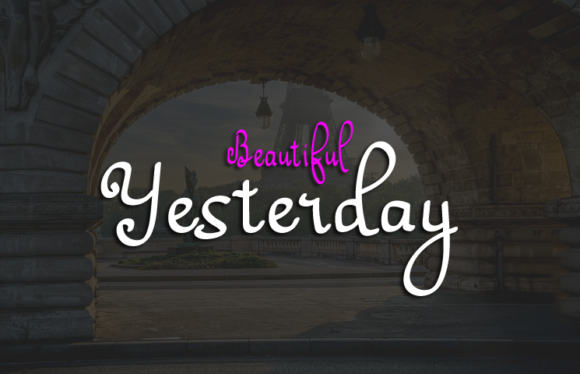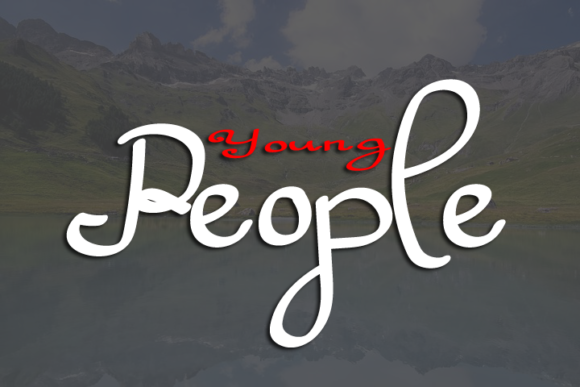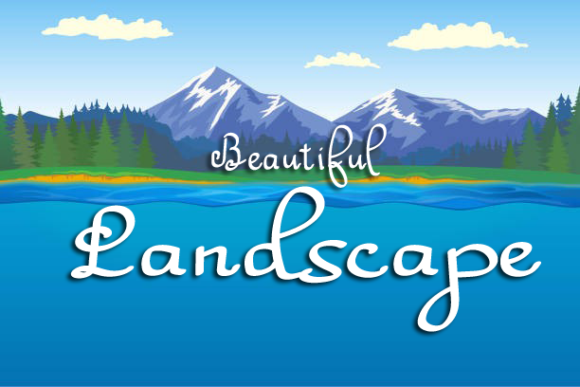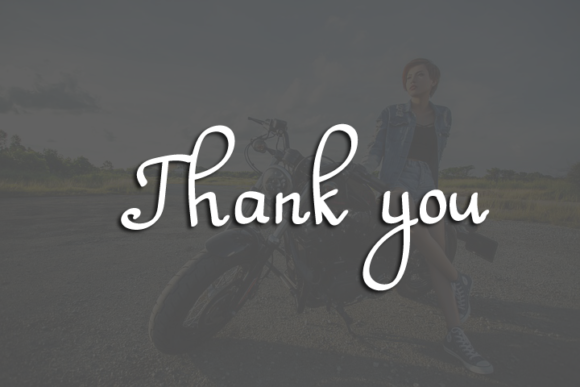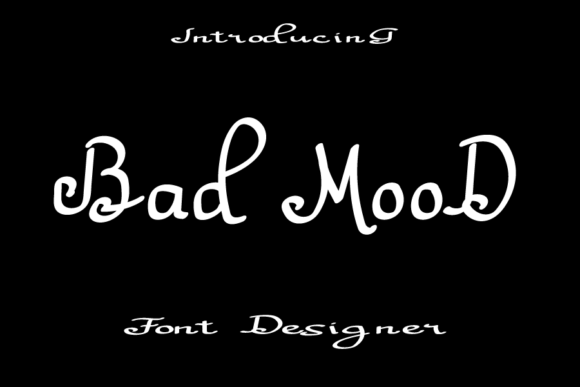
Introducing Bad Mood Font: The Epitome of Sophistication and Elegance
In the world of typography, fonts play a crucial role in conveying the tone and personality of a brand or design. For designers and crafters seeking to add a touch of refinement and luxury to their projects, Bad Mood Font is an exceptional choice. This chic, refined script font emanates sophistication and elegance, making it perfect for a wide range of applications.
The Characteristics of Bad Mood Font
Bad Mood Font boasts an impressive array of features that set it apart from other fonts. Its stylish alternates and ligatures make it a versatile and dynamic font, capable of adding a unique touch to any design. The font’s script style is reminiscent of traditional calligraphy, with flowing lines and curves that exude elegance and poise.
What Makes Bad Mood Font Stand Out
• Sophisticated and Refined: Bad Mood Font is designed to convey a sense of luxury and sophistication. Its refined lines and curves make it perfect for high-end branding, packaging, and advertising projects.
• Stylish Alternates and Ligatures: The font features a range of stylish alternates and ligatures, allowing designers to add a unique touch to their work. These alternates and ligatures can be used to create a sense of movement and fluidity, adding depth and interest to a design.
• Versatile: Bad Mood Font is a versatile font that can be used in a wide range of applications, from branding and packaging to advertising and editorial design.
• Elegant and Chic: The font’s elegant and chic design makes it perfect for designers and crafters seeking to add a touch of sophistication to their projects.
How to Use Bad Mood Font in Your Designs
Bad Mood Font can be used in a variety of design applications, including:
• Branding and Packaging: Use Bad Mood Font to create luxurious and sophisticated branding and packaging designs that stand out from the crowd.
• Advertising: The font’s elegant and refined design makes it perfect for use in advertising campaigns, particularly those targeting high-end audiences.
• Editorial Design: Bad Mood Font can be used in editorial design, such as in magazines, newspapers, and books, to add a touch of sophistication and elegance.
• Digital Design: The font can also be used in digital design, such as in website headers, social media graphics, and email marketing campaigns.
Tips for Getting the Most Out of Bad Mood Font
To get the most out of Bad Mood Font, consider the following tips:
• Use it sparingly: Bad Mood Font is a sophisticated and refined font, so it’s best to use it sparingly to avoid overwhelming the design.
• Experiment with alternates and ligatures: Take advantage of the font’s stylish alternates and ligatures to add a unique touch to your design.
• Pair it with complementary fonts: Pair Bad Mood Font with complementary fonts to create a cohesive and harmonious design.
Bad Mood Font is a chic, refined script font that emanates sophistication and elegance. Its stylish alternates and ligatures make it the perfect match for any project seeking to add a touch of luxury and refinement. With its versatility, elegance, and chic design, Bad Mood Font is an exceptional choice for designers and crafters seeking to create high-end designs that stand out from the crowd.